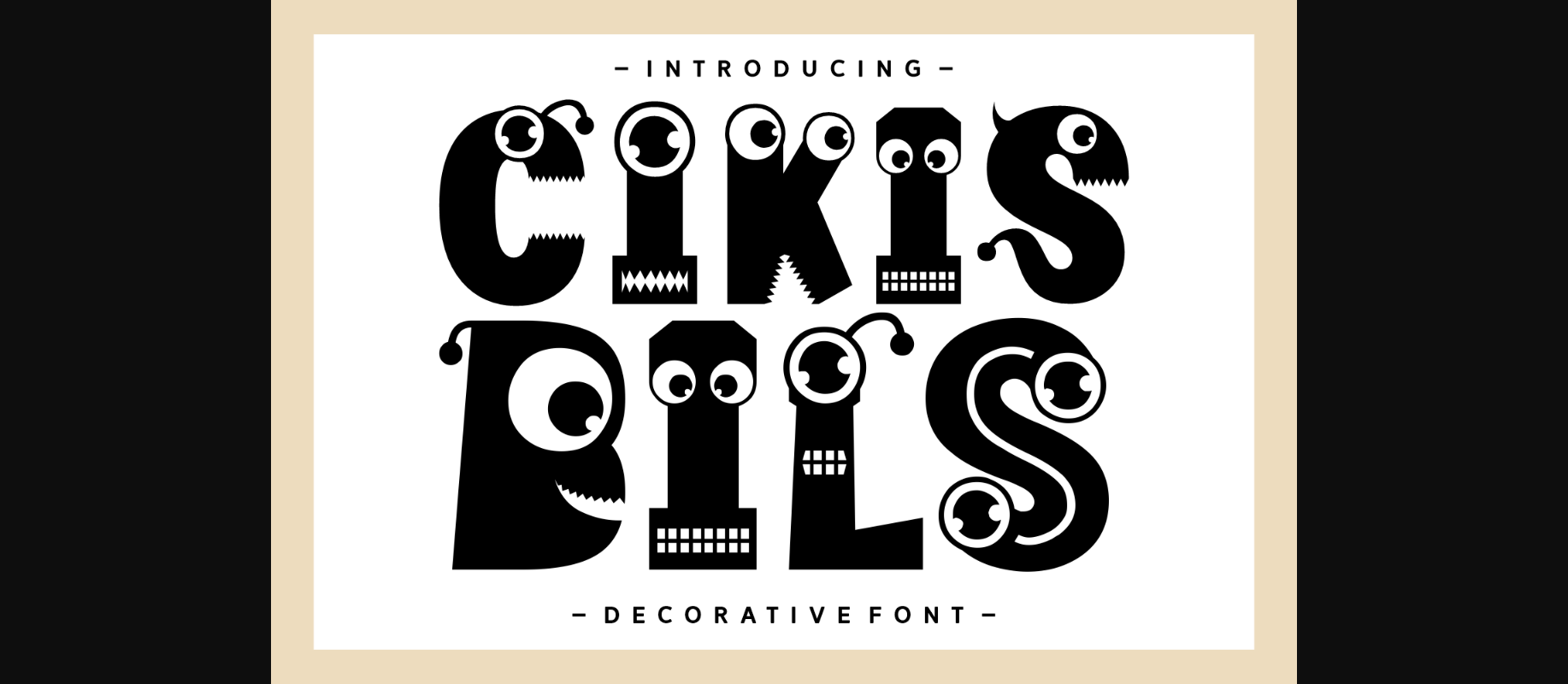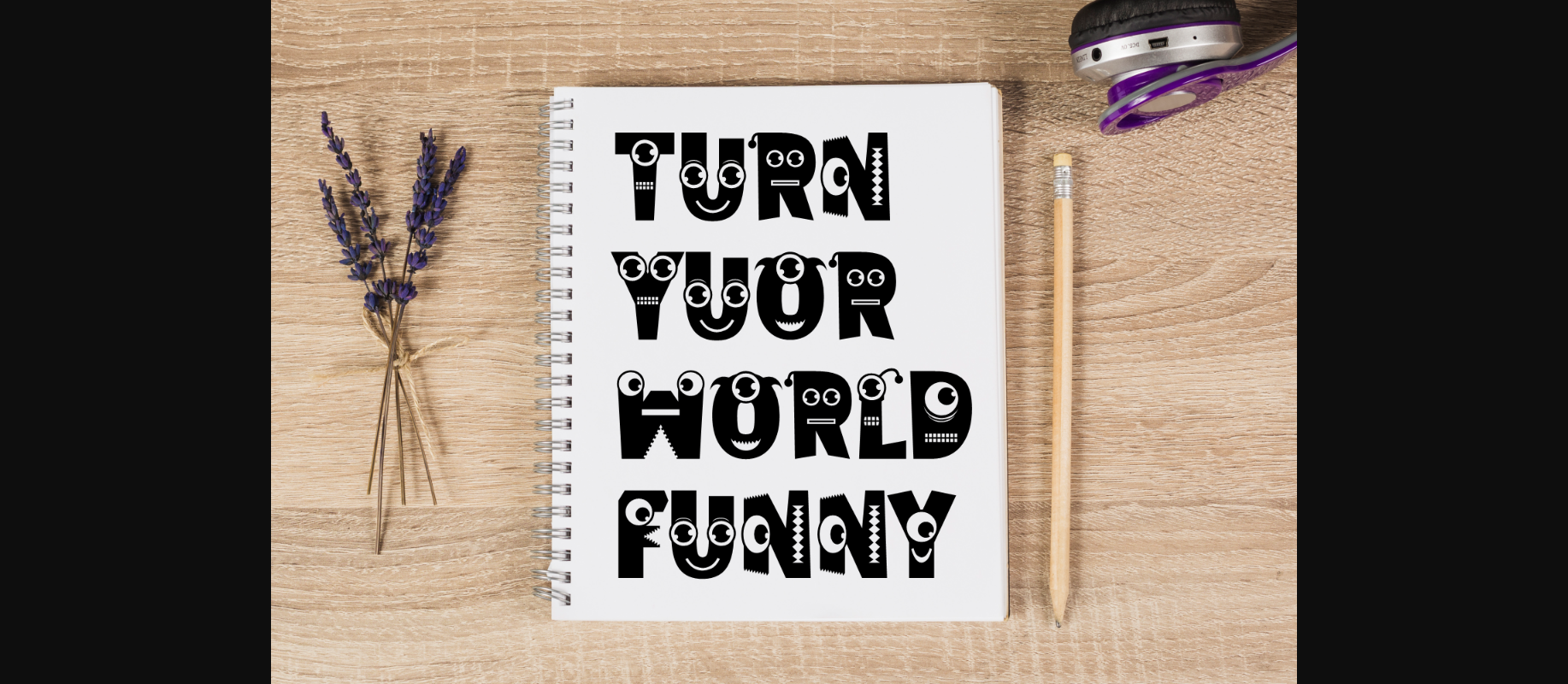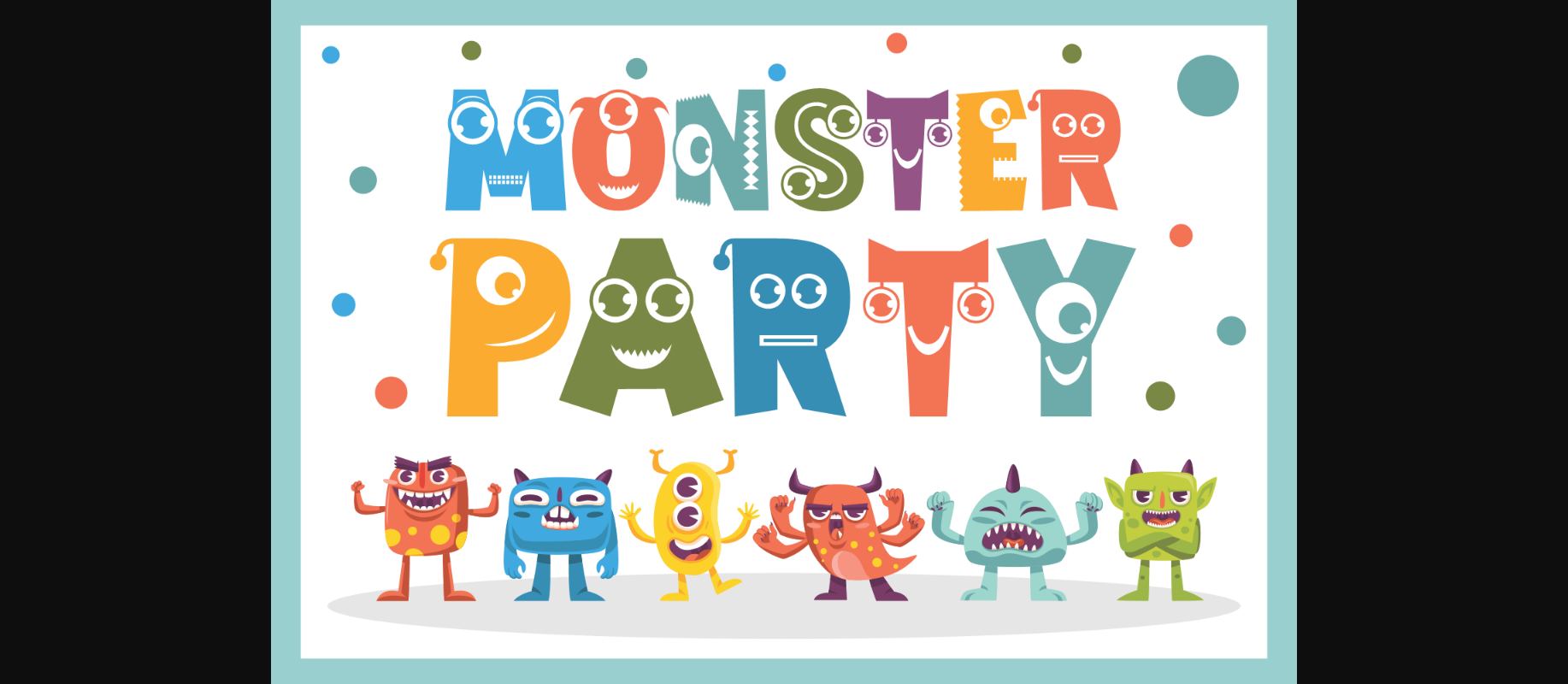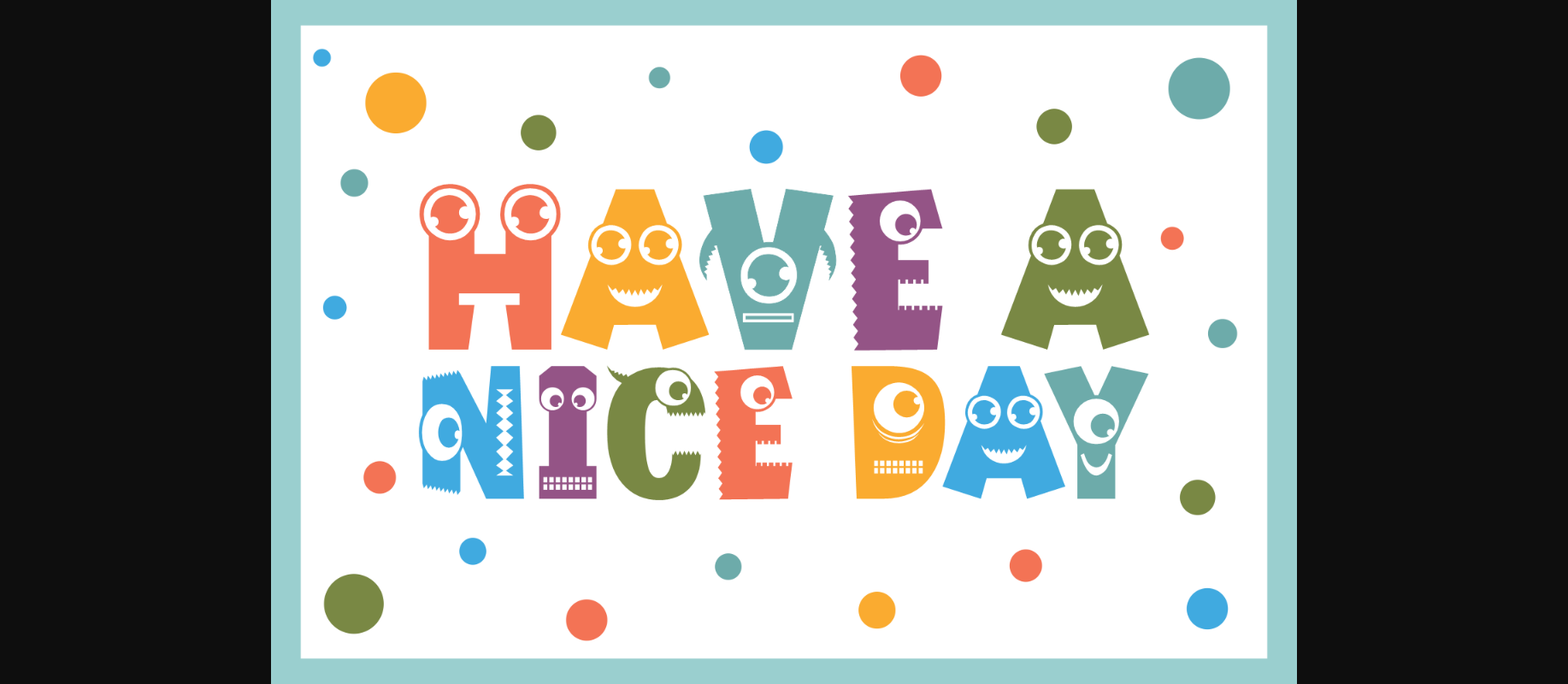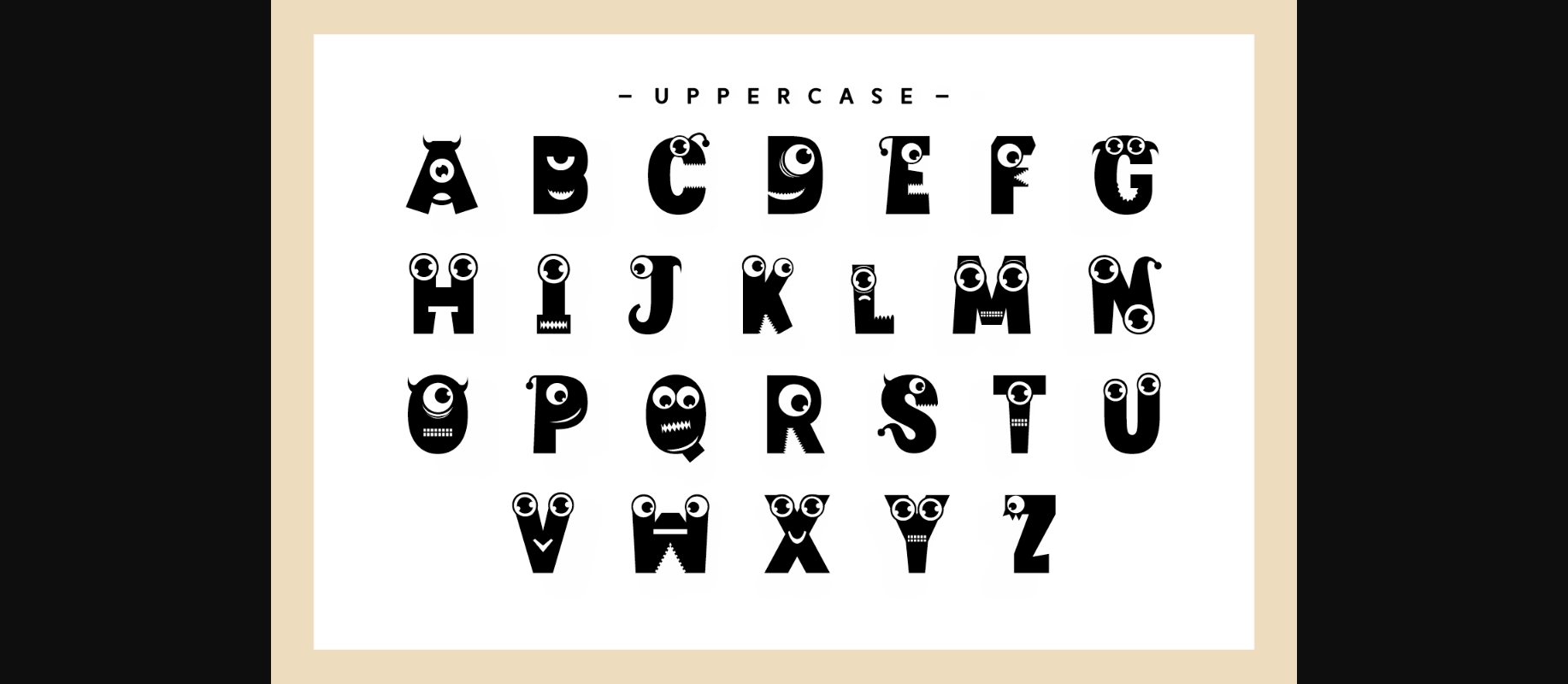
About Cikis Bils Font
Cikis Bils is a unique and funky decorative font. Add a comical note to your creations with these fun and playful googly-eyed characters! They are perfect for kid-friendly projects, fabric prints, headlines, titles, and many more.